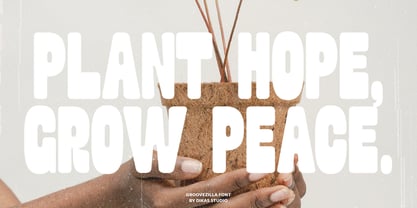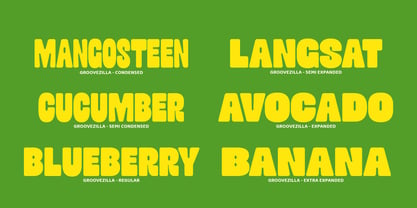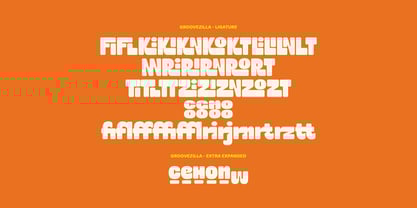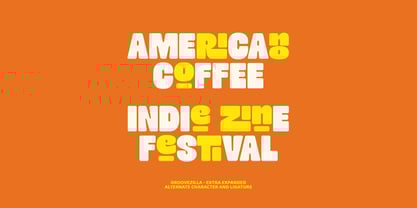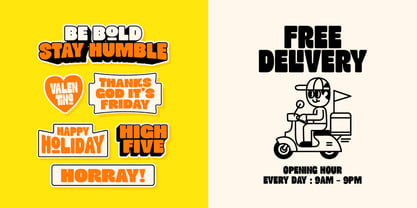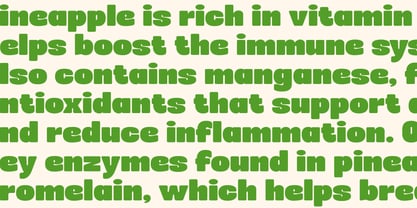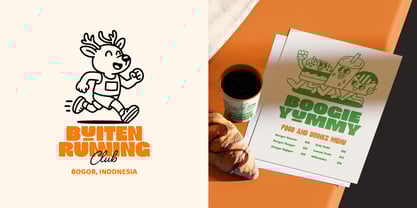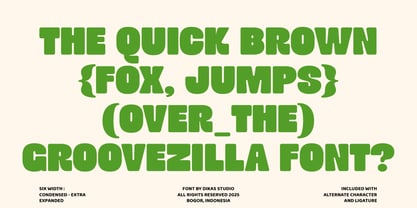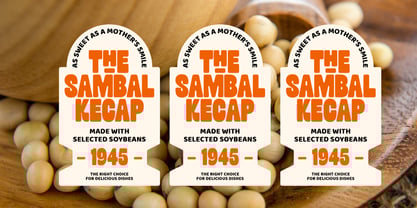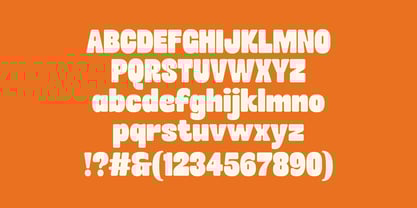
DKS Groovezilla
by Dikas Studio
The DKS Groovezilla Font Family was designed by Andika Setiawan, Hasnul Bolkiah and published by Dikas Studio. DKS Groovezilla contains 6 styles and family package options. More about this family
Groovezilla - Retro Bold Fonts
Groovezilla is a retro bold font packed with fun, flavor, and groovy flair. With its soft edges and cheerful personality, this typeface brings a playful, feel-good vibe to any design. Inspired by the funky spirit of vintage aesthetics, Groovezilla is a retro bold font that’s perfect for projects that want to stand out with confidence and style.
Groovezilla comes with 6 width styles — from Condensed to Extra Expanded — giving you complete control over how bold or wide you want to go. It also includes a wide range of alternate characters and ligatures, allowing you to customize your typography with unique flair.
Whether you're crafting a funky logo, a vibrant poster, or an attention-grabbing headline, Groovezilla delivers loud retro energy and modern fun in every letter. Let your creativity shine with this retro bold font that’s built to move, groove, and make a statement.
Designers: Andika Setiawan, Hasnul Bolkiah
Foundry: Dikas Studio